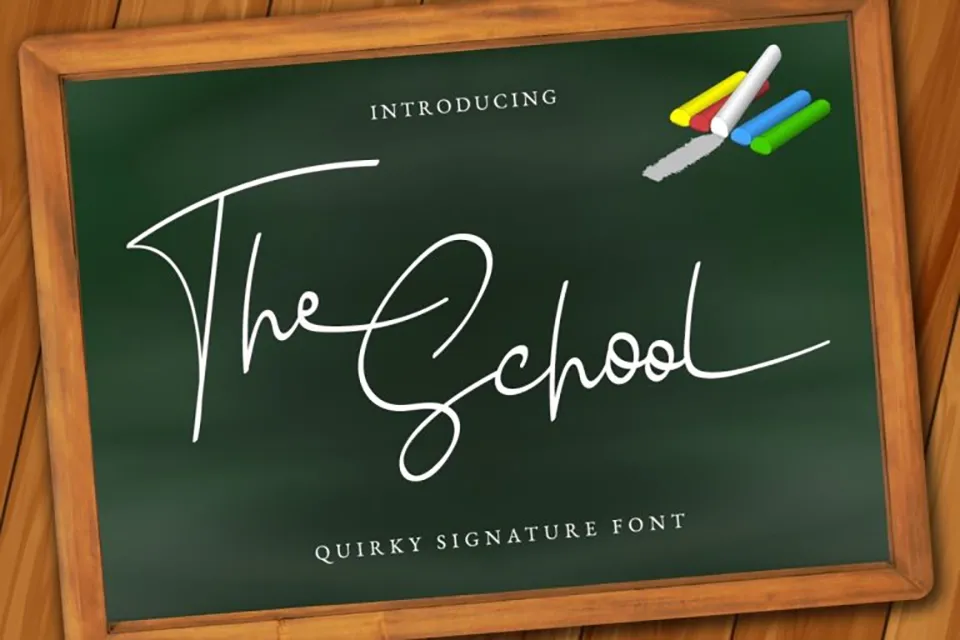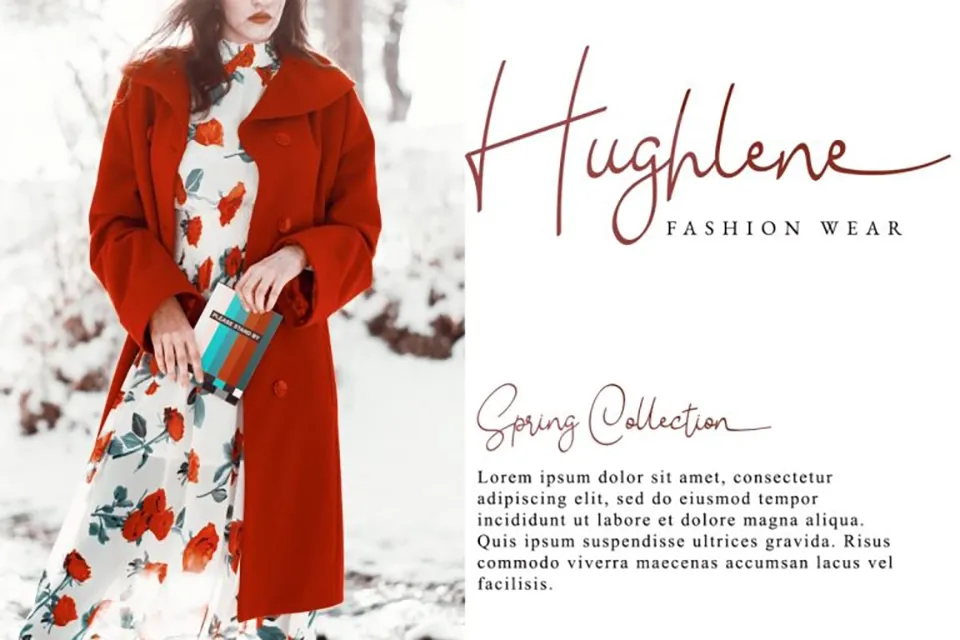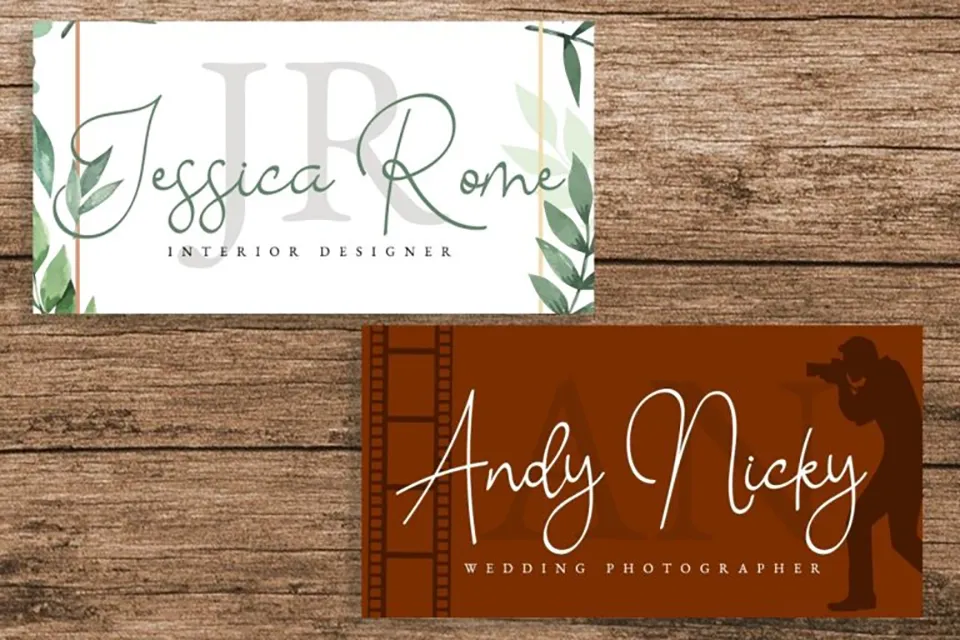
The School Font
The School Font is a quirky signature font that adds a touch of playfulness and uniqueness to any design. With its flowing, handwritten style, it brings a personal and informal feel, making it perfect for projects that need a friendly and approachable vibe. Ideal for invitations, branding, and creative projects, The School Font stands out with its distinct character. Its versatility allows it to enhance various designs, ensuring your message is delivered with charm and originality. If you’re looking for a font that combines fun and readability, The School Font is an excellent choice.